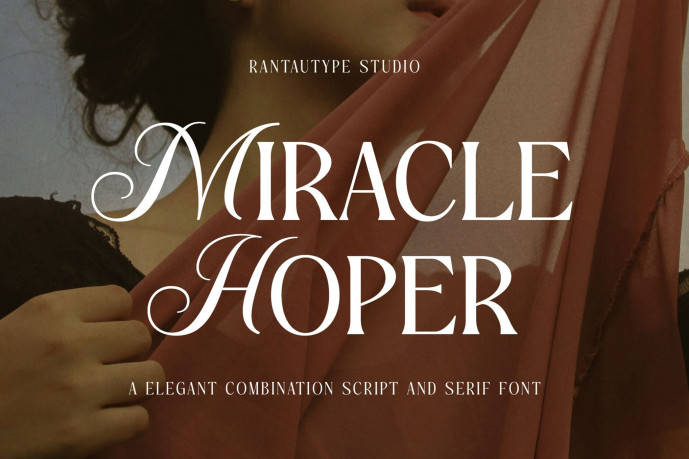
Miracle Hoper Elegant Font
Miracle Hoper Elegant Font is a serif and script font. We put the script font in alternate uppercase you can mix to make you design project next level.
Miracle Hoper is a perfectly choice for any creative endeavor, creating, modern, lifestyle design such as logotype, title, cover, branding, invitations, wedding designs, display and magazine, social media posts, advertisements, printed quotes, product packaging, corporate brand, product designs, labels, photography, watermarks, special events and any other project with elegant touch.
• Alternate and Ligature